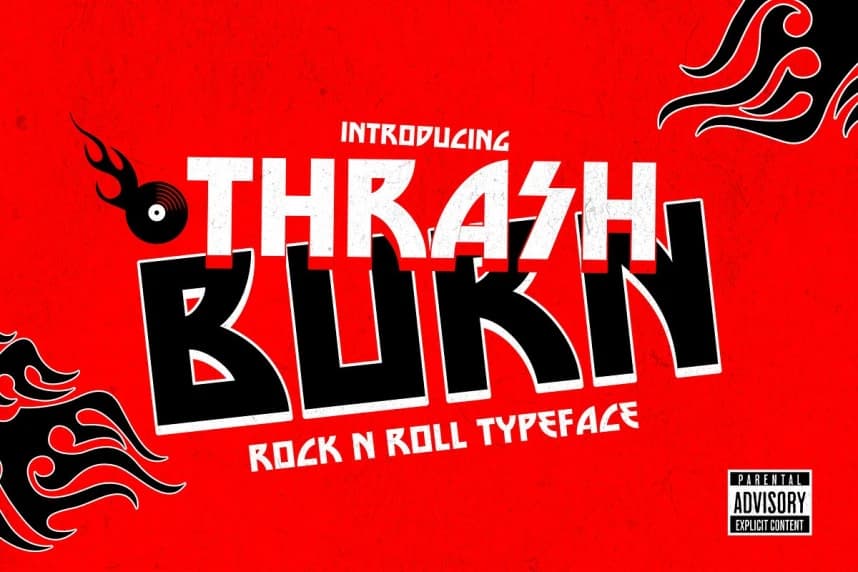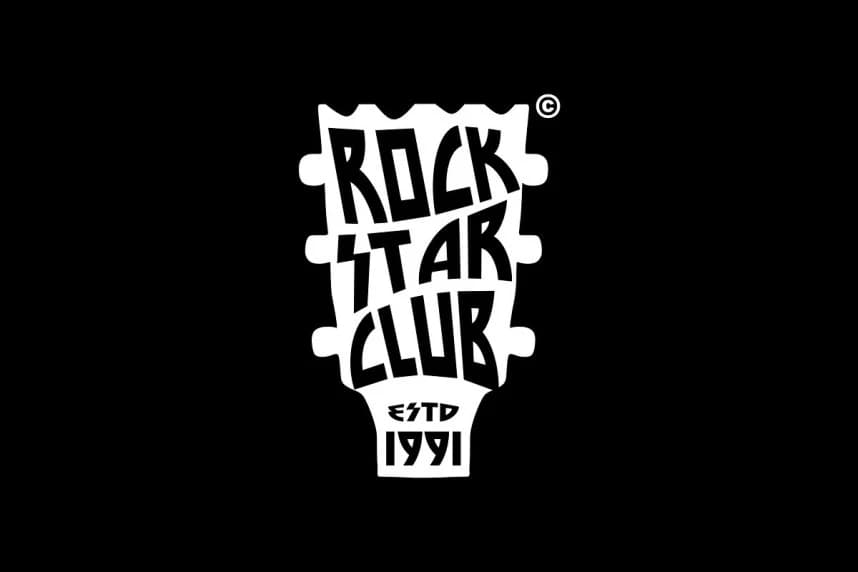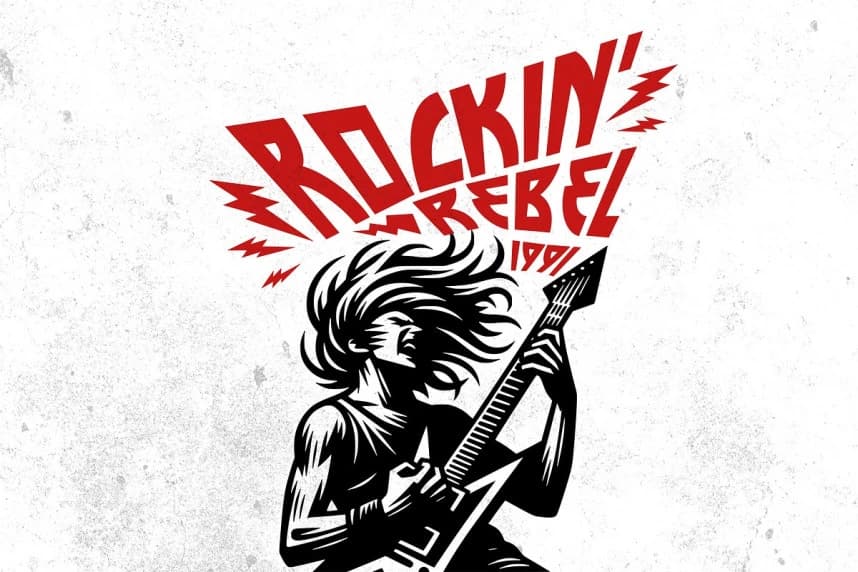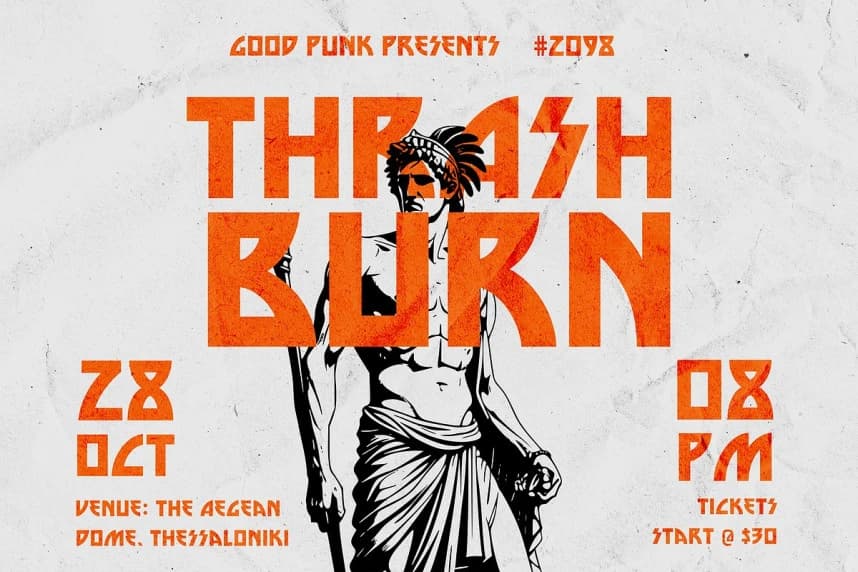
Thrash Burn Font
Thrash Burn Font, an edgy 1980s-inspired typeface forged in the fires of punk rock, rebellion, and underground grit. This isn't your average retro font, it's a full-throttle scream from the skateparks, dive bars, and anarchist zines of a louder, rougher era.